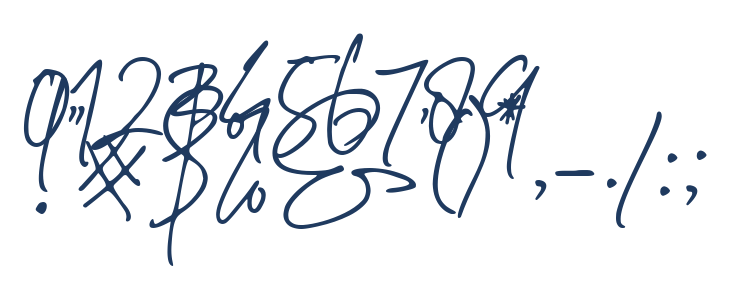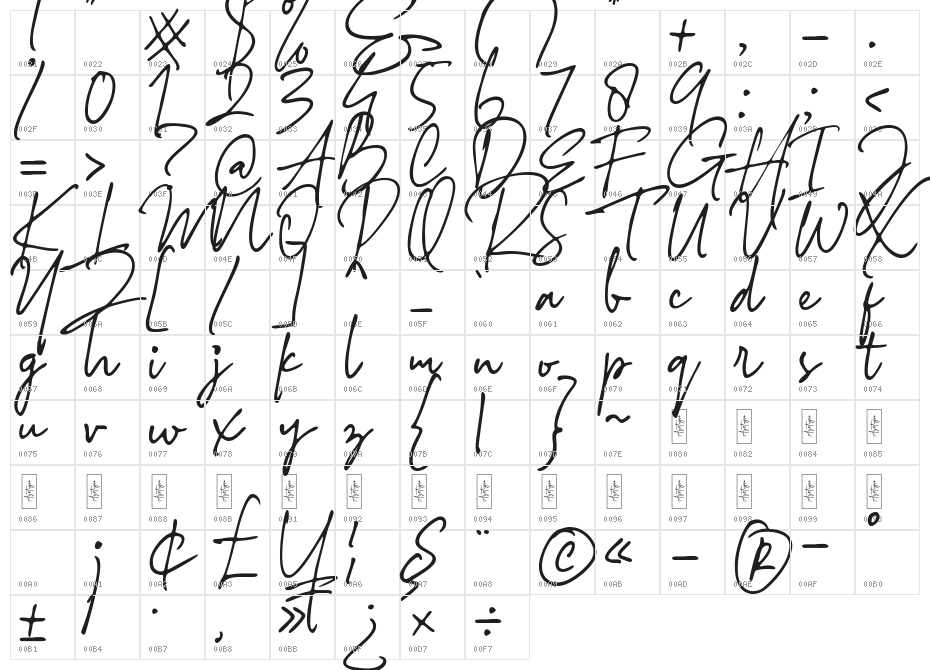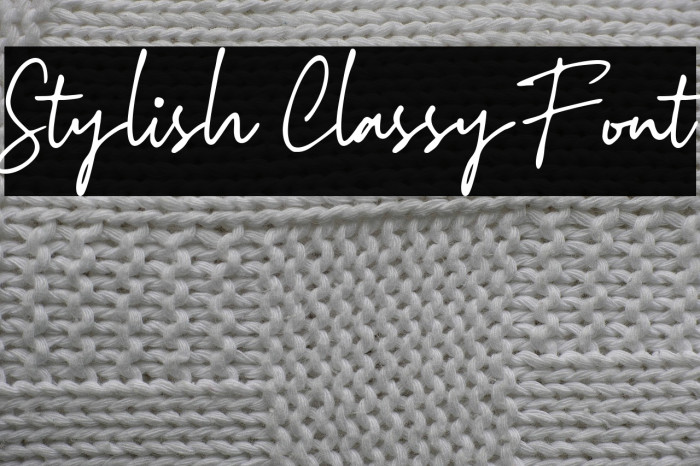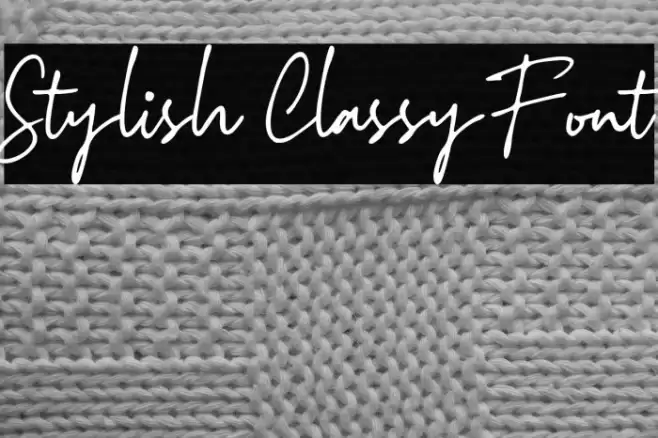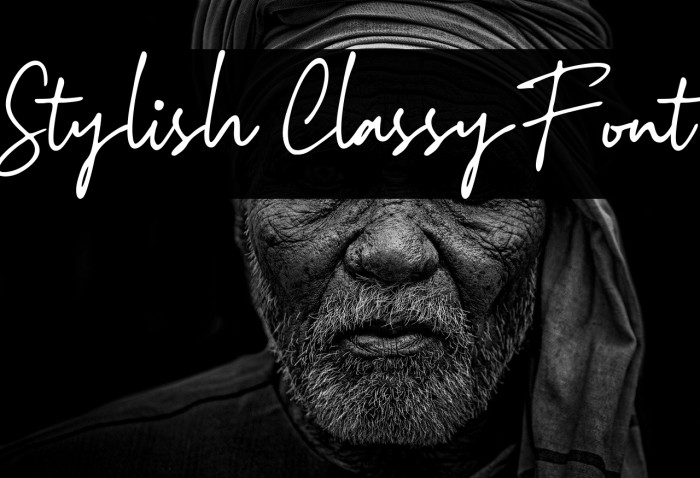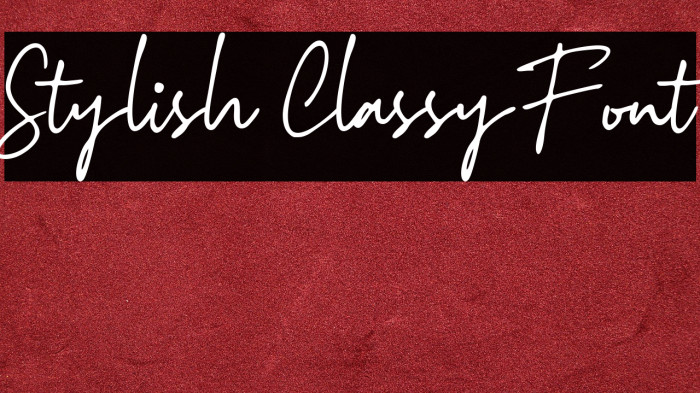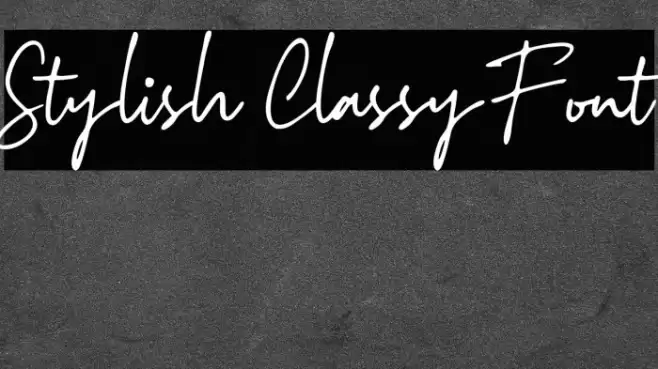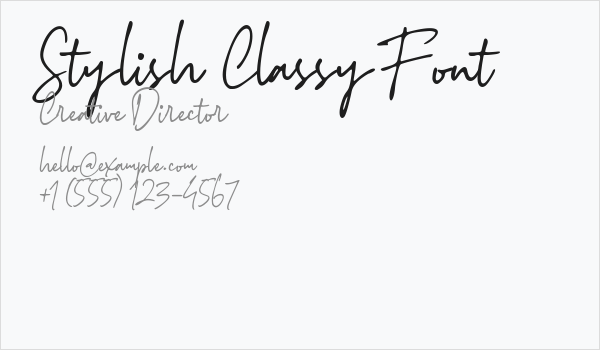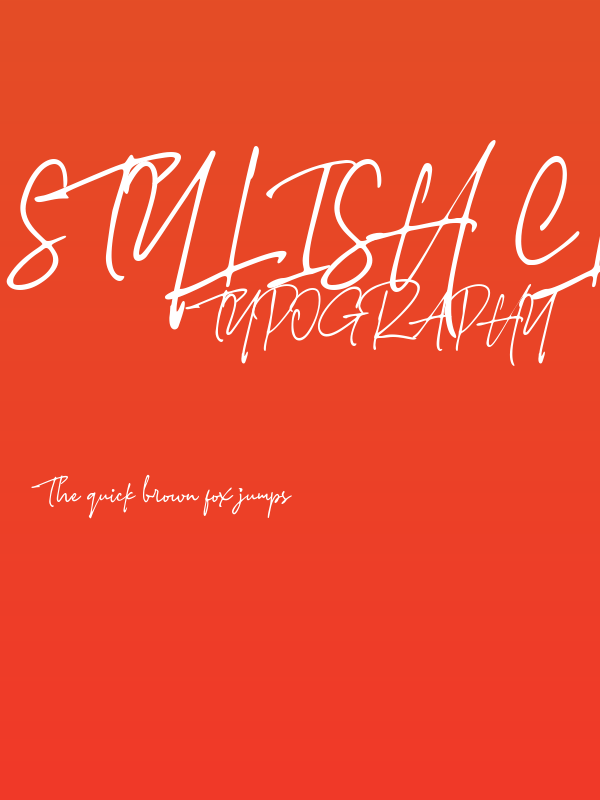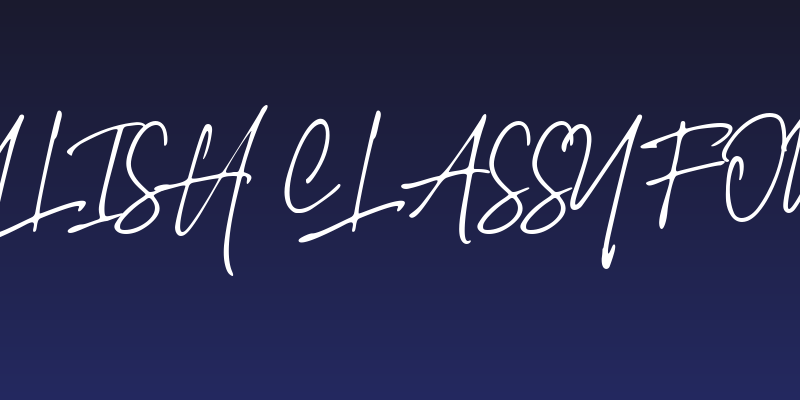
Stylish Classy Font Font
Stylish Classy Font Description
This font exudes a stylish and classy vibe, characterized by its elegant script style. The letters are fluid and connected, reminiscent of classic handwriting with a modern twist. The uppercase letters are slightly more angular, adding a touch of sophistication, while the lowercase letters flow smoothly with a more rounded appearance. The numerals and special characters maintain the same fluidity, ensuring a cohesive look across all elements. This font is perfect for projects that require a personal touch, such as invitations, greeting cards, or branding materials that aim to convey elegance and style.
| Overall Style | Elegant, Modern |
| Proposed Projects | Ideal for invitations, greeting cards, branding, and elegant design projects. |